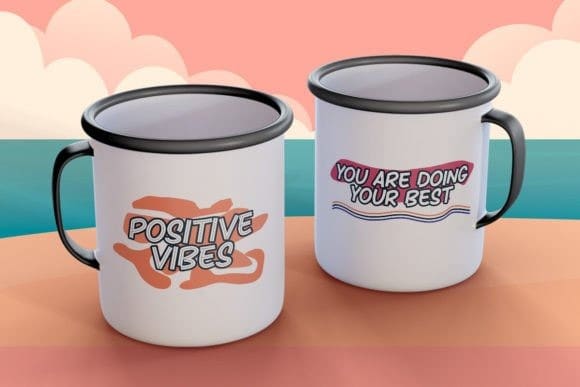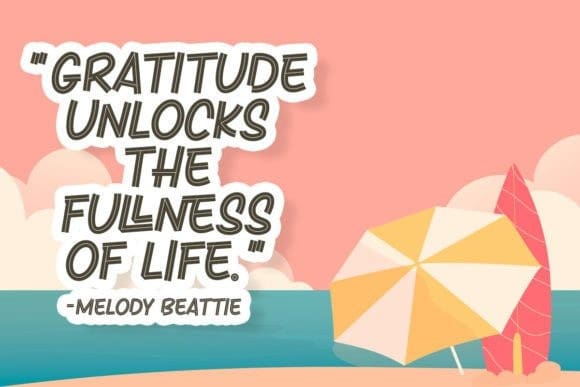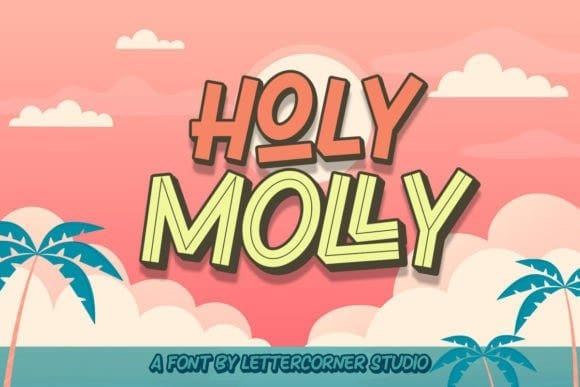
Holy Molly Font
Holy Molly Font is a bold pair font that is very fun and cheerful. This font is perfect for titles, flyers, greeting cards, product packaging, book covers, printed quotes, logos, clothing designs, album covers, etc.
With an extensive collection of ligature options, this font allows you to create smooth and seamless connections between characters, thus enhancing the overall aesthetic appeal of your design.